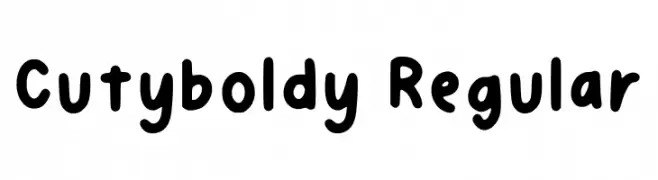
A bold, italicized font with a dynamic and sporty style.
A bold, italic font with a dynamic and modern style, featuring sharp edges and angular cuts.
A modern, italicized font with a sleek and dynamic design.
A bold, shadowed font with a dynamic, speedy appearance.
A playful, hand-drawn font with bold, irregular characters.
A minimalist, thin, and modern font with elongated strokes and a sleek appearance.
A modern, geometric font with clean lines and a minimalist style.
A playful handwritten font with a casual and friendly style.
A lively, expressive script font with bold, flowing letterforms.
A modern, high-contrast serif font with angular serifs and geometric structure.
A playful and elegant script font with fluid, connected letterforms.
A bold, decorative font with a striped pattern and condensed form.
A whimsical, hand-drawn font with playful doodles and irregular strokes.
A playful, hand-drawn font with bold, irregular characters.
A bold, dynamic handwritten font with thick strokes and a playful style.
A bold, urban-inspired font with a layered, three-dimensional appearance.
A playful, handwritten font with bold, rounded characters and a casual, urban style.
A bold, dynamic font with a modern, slanted design.
An elegant, high-contrast script font with ornate flourishes and a historical feel.
A flowing, cursive font with elegant, sweeping strokes and a handwritten appearance.
A bold, geometric sans-serif font with a modern and clean design.
A romantic, cursive font with elegant loops and decorative flair.
A textured, brush-style font with an expressive, hand-drawn appearance.
A bold, angular serif font with a modern twist and strong visual impact.
A bold, gothic-inspired font with sharp, angular lines and dramatic curves.
An elegant, flowing script font with smooth, cursive strokes and graceful curves.
A playful and whimsical script font with flowing, handwritten characteristics.
An elegant and fluid script font with intricate loops and swirls.
A bold, geometric sans-serif font with a modern, industrial style.
A bold, playful script font with a handwritten style.
A charming and elegant script font with a hand-drawn appearance.